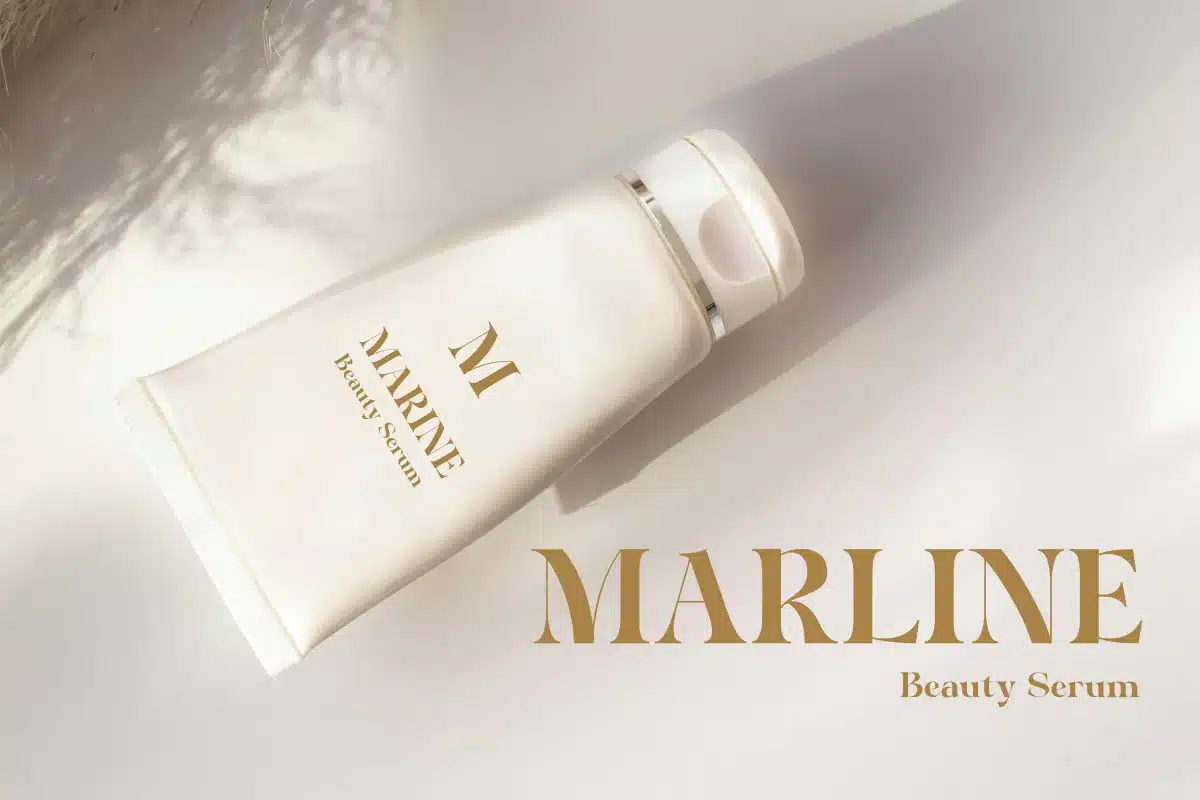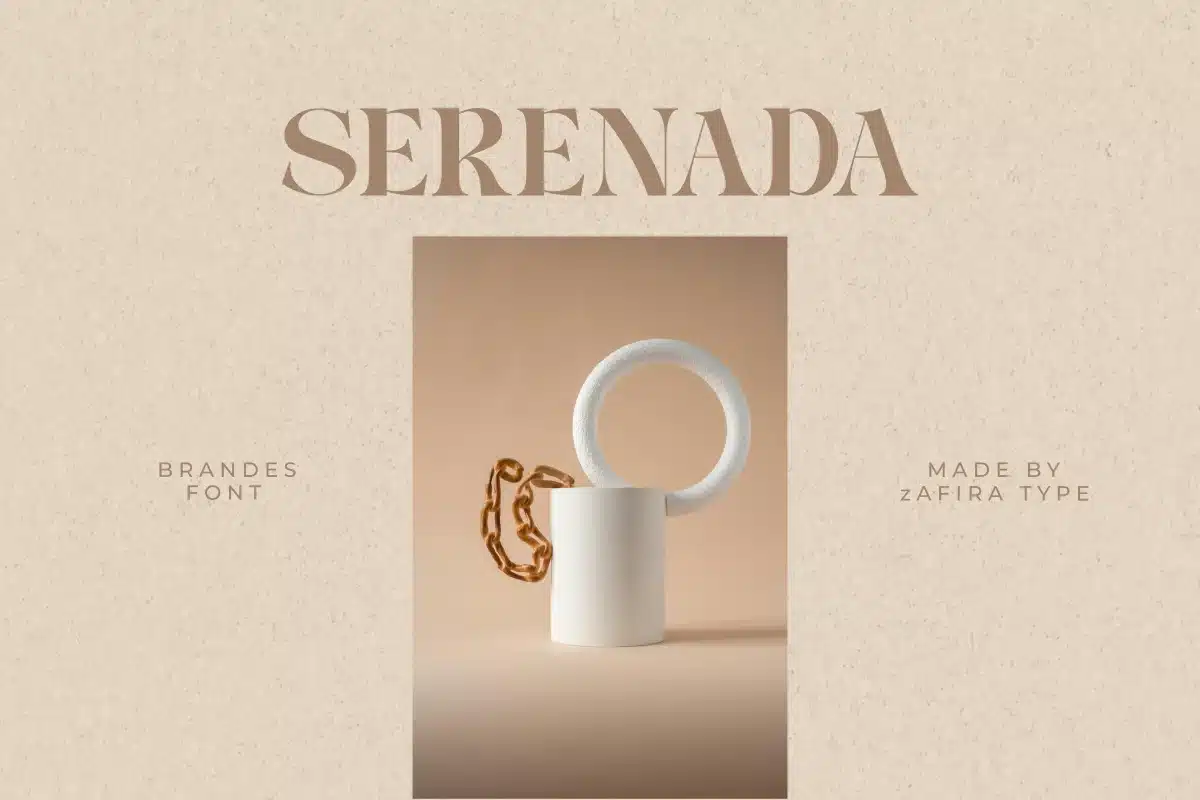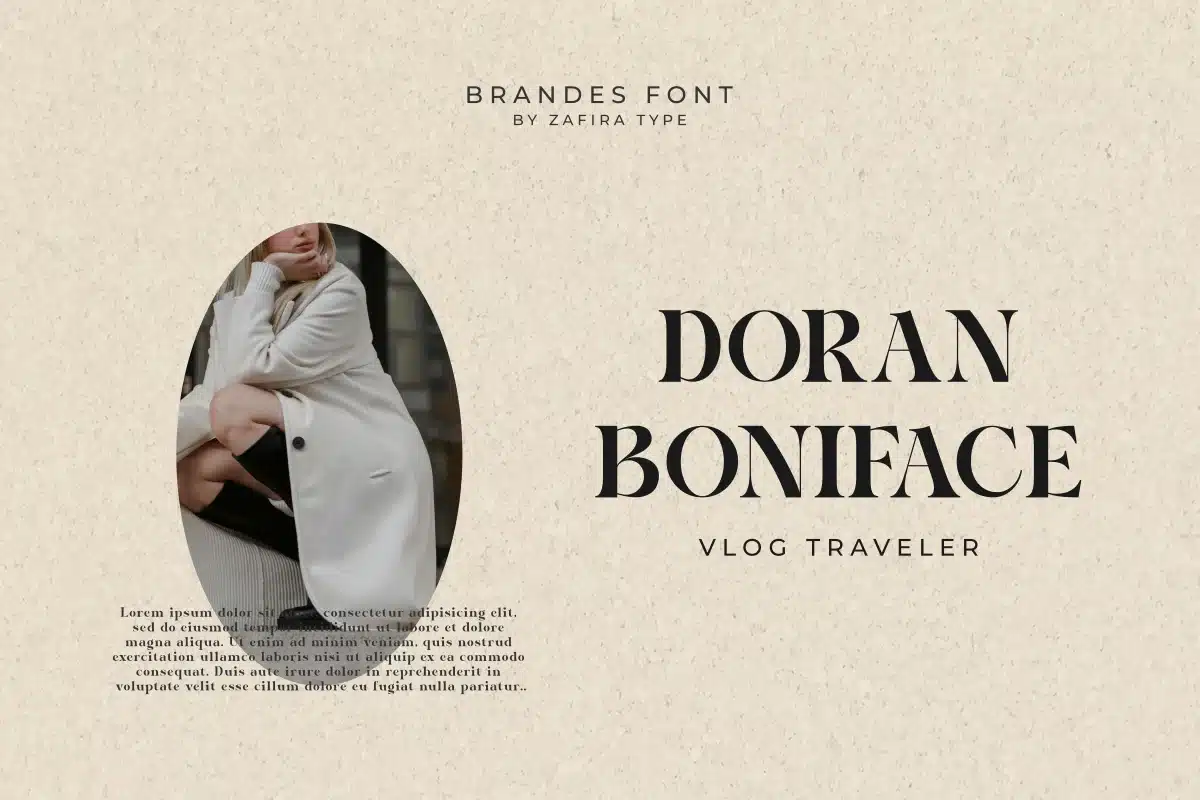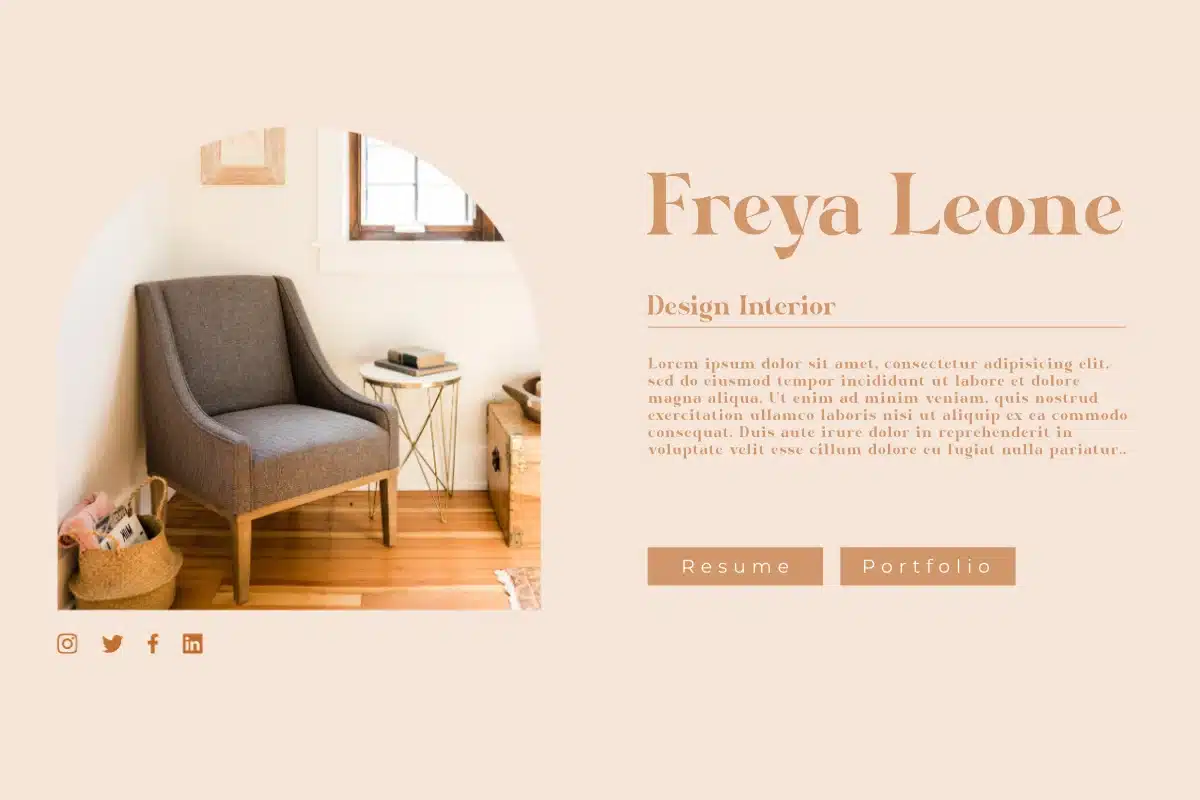
Brandes Font
Brandes is a timeless serif font that combines classic elegance with modern sophistication. Ideal for branding, editorial design, and print, Brandes offers versatility with its multiple weights and high-quality characters. With comprehensive multilingual support, it’s perfect for global projects. Elevate your designs with the refined beauty of Brandes.